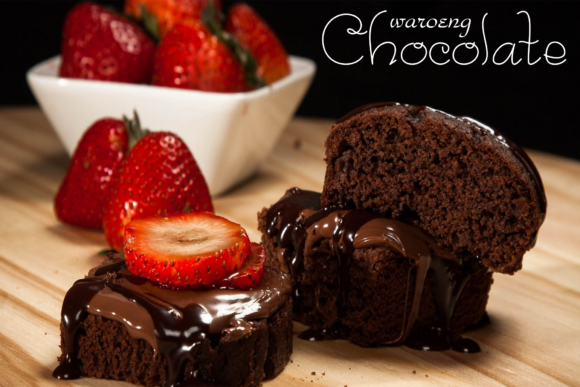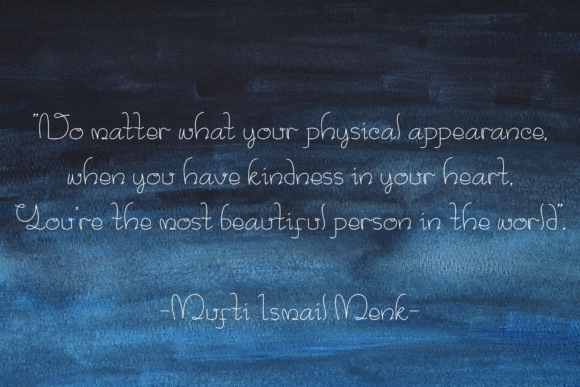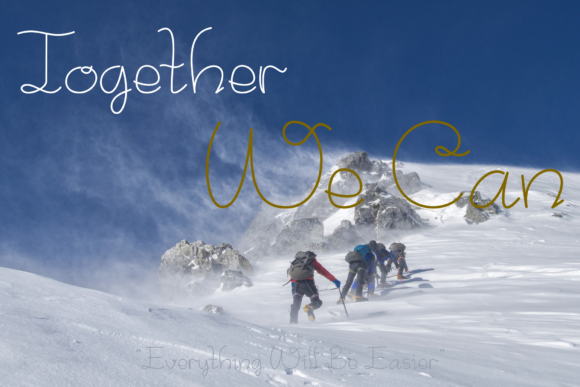
Skinny Word Font
About Skinny Word Font
The Skinny Word is a natural handwritten monoline font. It’s inspired by my own handwritten that I use for my book. Simple and eye-catching font design.